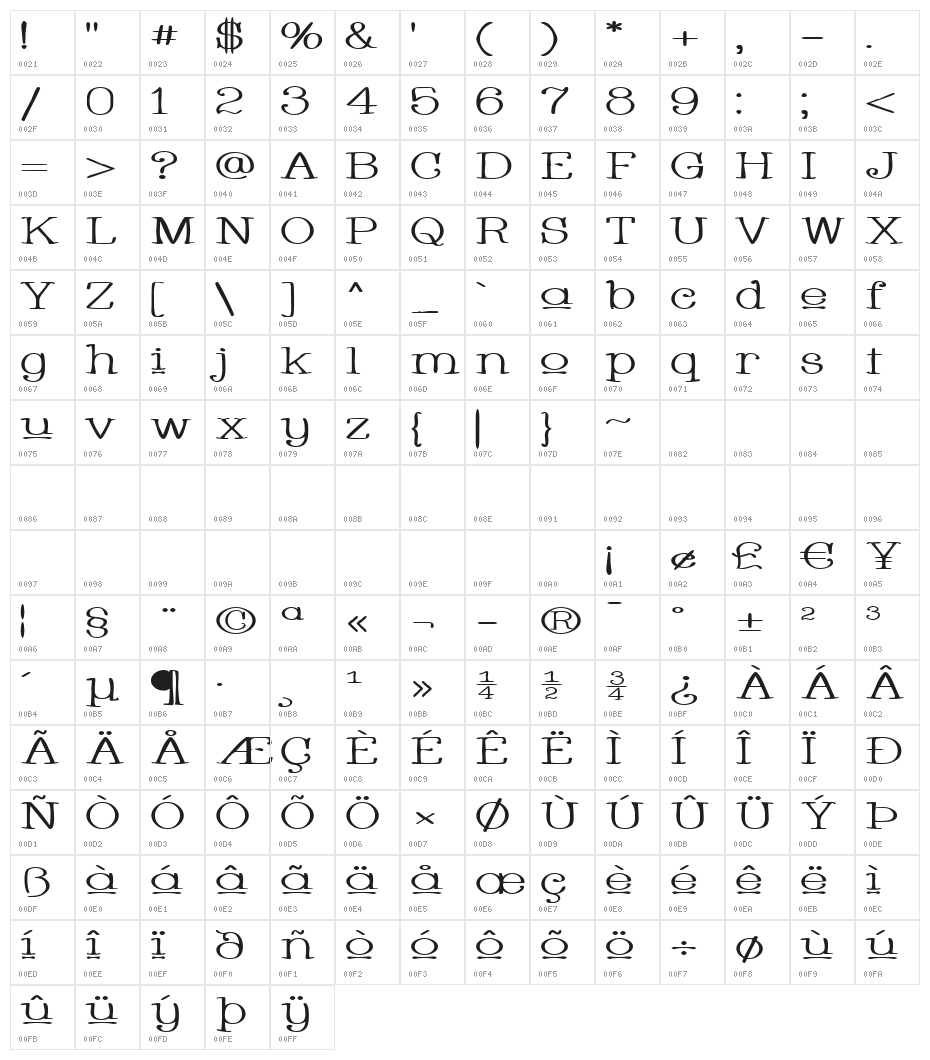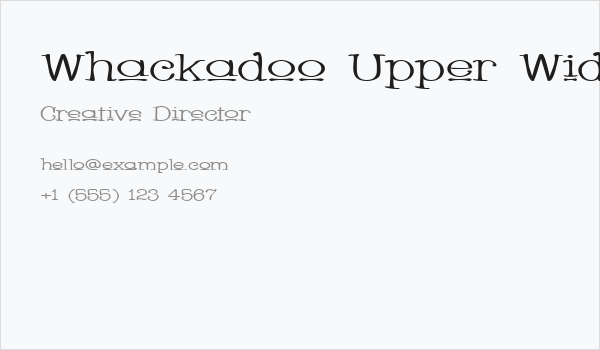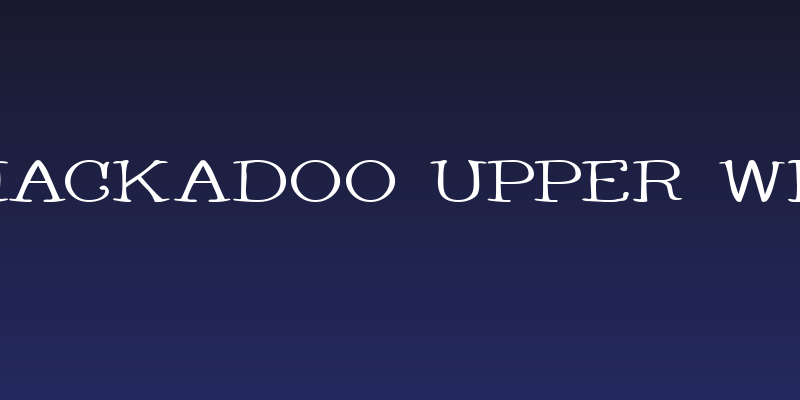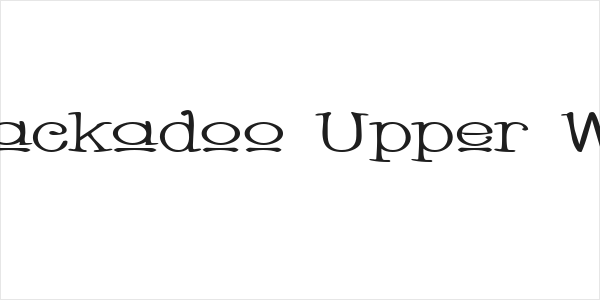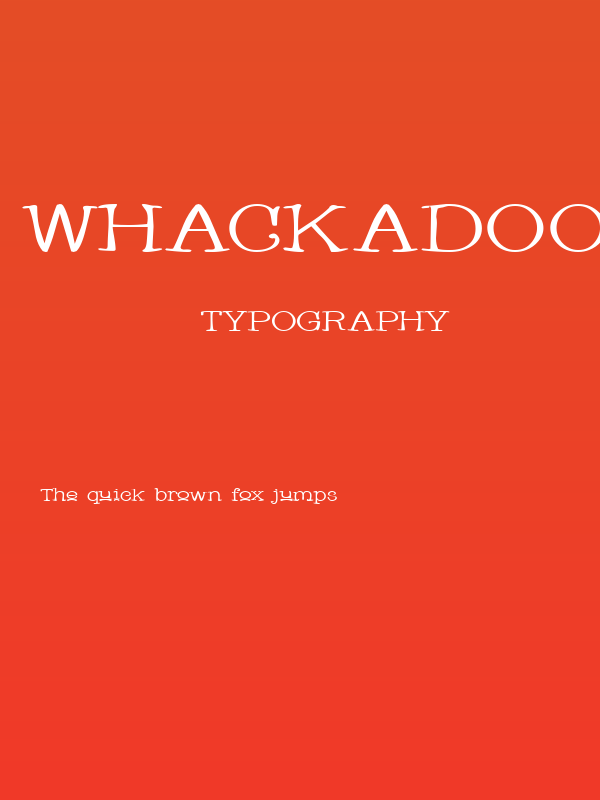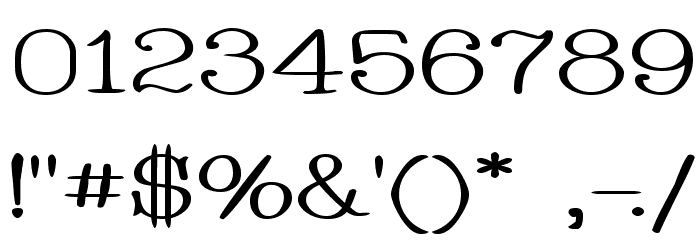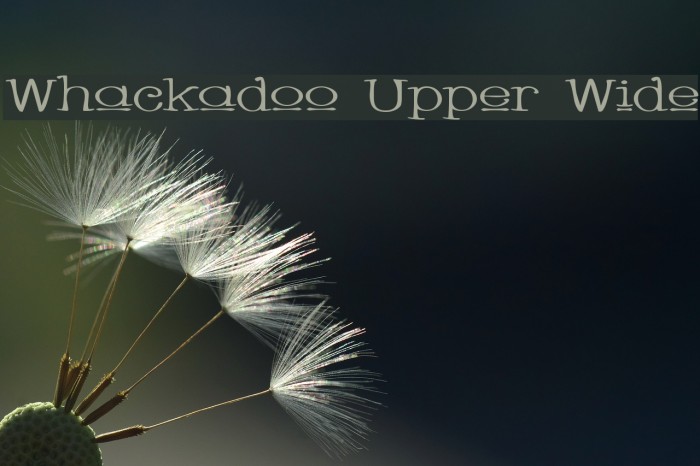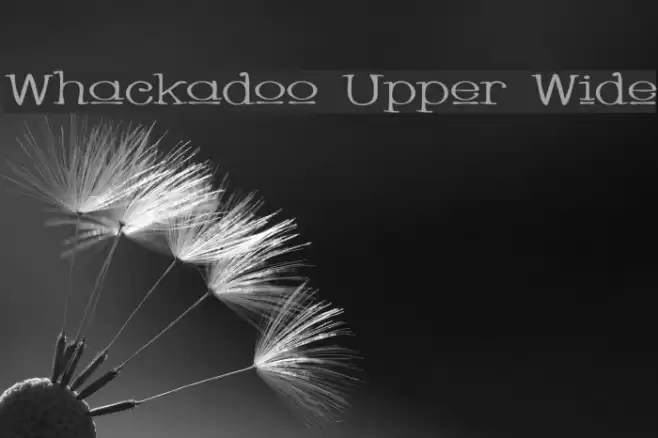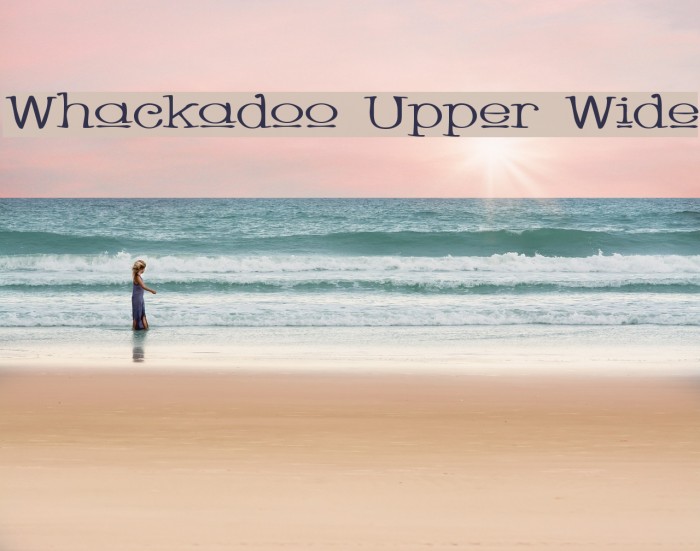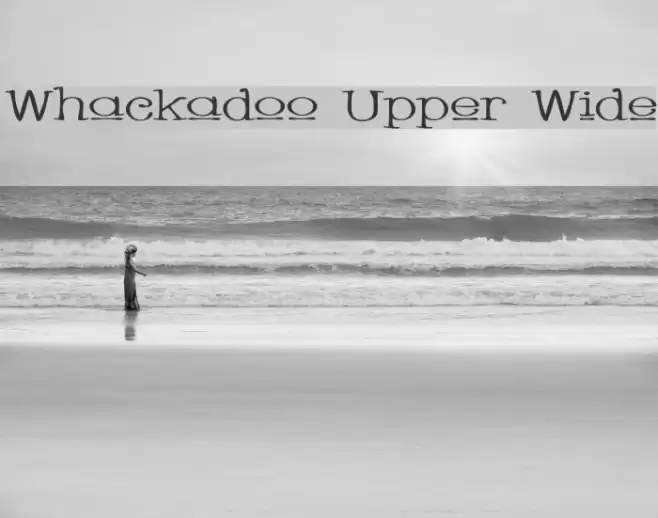
Whackadoo Upper Wide Font
Whackadoo Upper Wide Description
This font features a playful and whimsical design with a unique blend of curves and straight lines. The uppercase letters are bold and wide, with distinctive serifs that add a touch of elegance. The lowercase letters maintain the same playful style, with some characters featuring exaggerated loops and swirls. The numbers are consistent with the overall style, offering a clear and readable appearance. Special characters are creatively designed, maintaining the font's whimsical nature. This font is perfect for projects that require a fun and engaging look, while still being legible and stylish.
| Width | Expanded |
| Proposed Projects | Ideal for children's books, playful branding, creative posters, and whimsical invitations. |